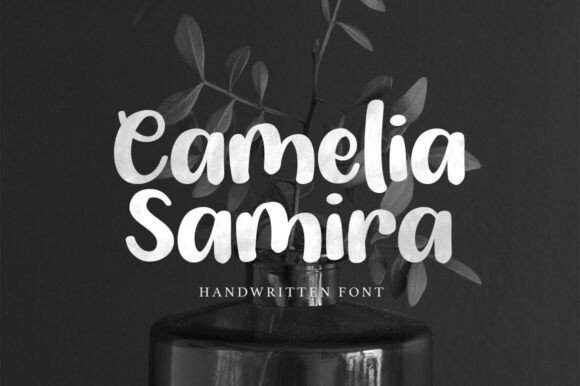
Introducing Camelia Samira Font: The Perfect Blend of Boldness and Elegance
Are you looking for a font that can add a touch of warmth and charm to your design? Look no further than Camelia Samira Font. This bold handwritten font is designed to bring a soft, rounded touch to your creative projects, making it ideal for a wide range of applications. In this article, we’ll take a closer look at the features and benefits of Camelia Samira Font and explore how it can elevate your design game.
What is Camelia Samira Font?
Camelia Samira Font is a bold handwritten font that boasts a unique blend of boldness and elegance. Its natural curves and friendly flow make it perfect for designs that require a personal touch. The font’s soft, rounded edges give it a warm and inviting feel, making it ideal for designs that need to convey a sense of approachability and friendliness.
Key Features of Camelia Samira Font
- Bold and Handwritten: Camelia Samira Font is a bold handwritten font that makes a statement. Its bold strokes and confident lines make it perfect for designs that require a strong and assertive look.
- Soft and Rounded: Despite its boldness, Camelia Samira Font has a soft and rounded touch that gives it a warm and inviting feel. This makes it perfect for designs that require a friendly and approachable tone.
- Natural Curves: The font’s natural curves and friendly flow make it perfect for designs that require a sense of movement and fluidity.
- Versatile: Camelia Samira Font is incredibly versatile and can be used for a wide range of applications, from logos and branding to wedding designs and packaging.
Use Cases for Camelia Samira Font
So, what can you use Camelia Samira Font for? The possibilities are endless, but here are some ideas to get you started:
- Logos and Branding: Camelia Samira Font is perfect for logos and branding that require a bold and assertive look. Its natural curves and friendly flow make it ideal for lifestyle branding and modern wedding designs.
- Wedding Designs: The font’s soft, rounded edges and bold strokes make it perfect for wedding designs, including invitations, programs, and signage.
- Packaging: Camelia Samira Font is also great for packaging designs that require a bold and eye-catching look.
- Instagram Quotes: The font’s friendly and approachable tone makes it perfect for Instagram quotes and social media posts.
Benefits of Using Camelia Samira Font
So, why should you use Camelia Samira Font for your design projects? Here are just a few benefits:
- Unique and Eye-Catching: Camelia Samira Font is a unique and eye-catching font that will set your designs apart from the crowd.
- Personal Touch: The font’s soft, rounded edges and natural curves give it a personal touch that will make your designs feel more approachable and friendly.
- Versatile: Camelia Samira Font is incredibly versatile and can be used for a wide range of applications.
- Easy to Read: Despite its boldness, Camelia Samira Font is easy to read and understand, making it perfect for designs that require a clear and concise message.
Tips for Using Camelia Samira Font
Here are a few tips for using Camelia Samira Font effectively:
- Use it Boldly: Camelia Samira Font is a bold font, so don’t be afraid to use it boldly. Experiment with different sizes and colors to make a statement.
- Pair it with Other Fonts: Camelia Samira Font pairs well with other fonts, so don’t be afraid to experiment with different combinations.
- Use it for Headlines: The font’s bold strokes and confident lines make it perfect for headlines and titles.
- Experiment with Colors: Camelia Samira Font looks great in a variety of colors, so don’t be afraid to experiment with different hues and shades.
| Font Name | Camelia Samira Font |
In conclusion, Camelia Samira Font is a bold handwritten font that brings a soft, rounded touch to your design. Its natural curves and friendly flow make it perfect for logos, lifestyle branding, modern wedding designs, packaging, and Instagram quotes. With its unique and eye-catching look, personal touch, and versatility, Camelia Samira Font is the perfect choice for any creative project. So why wait? Give Camelia Samira Font a try today and see the difference it can make!